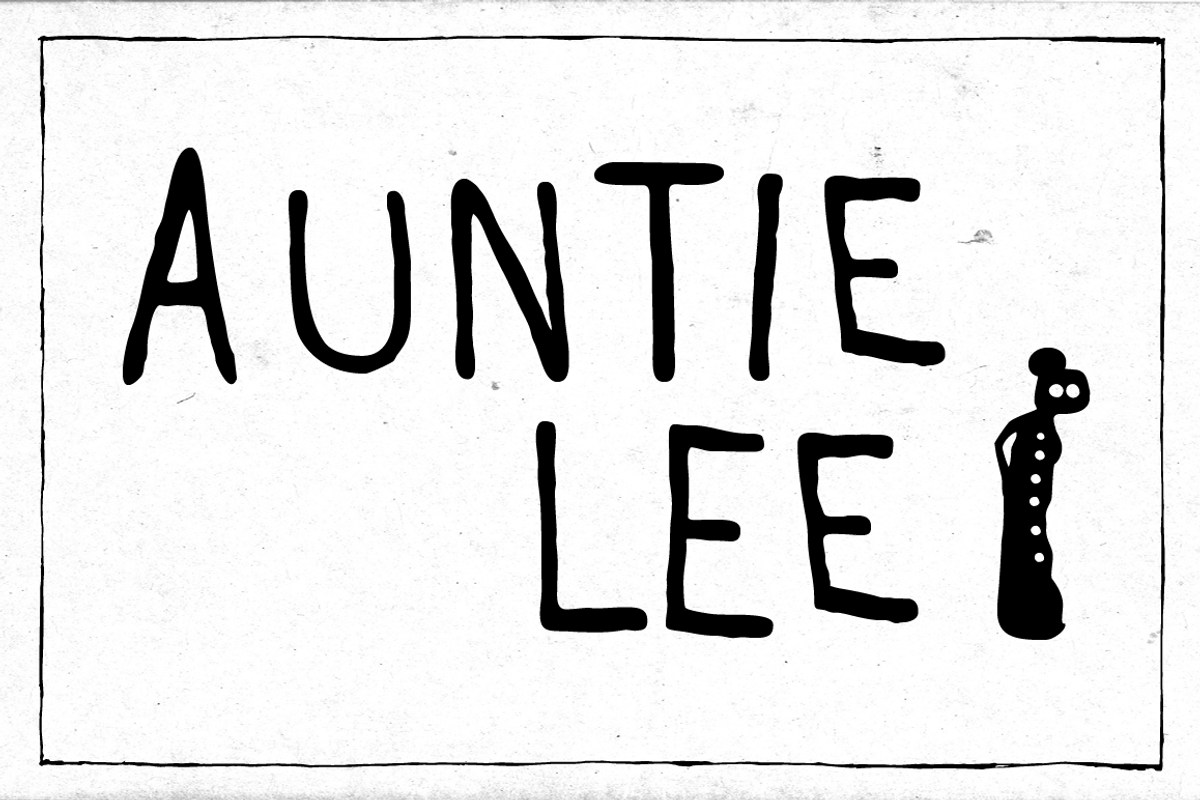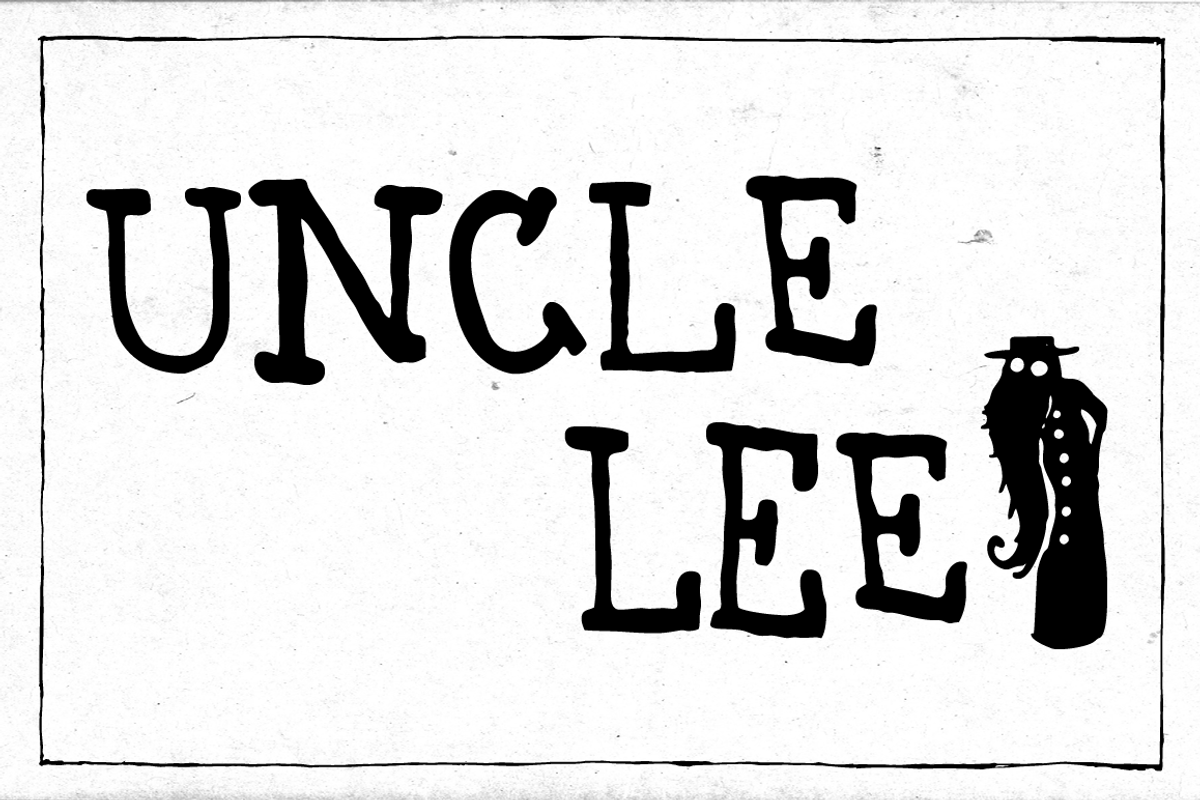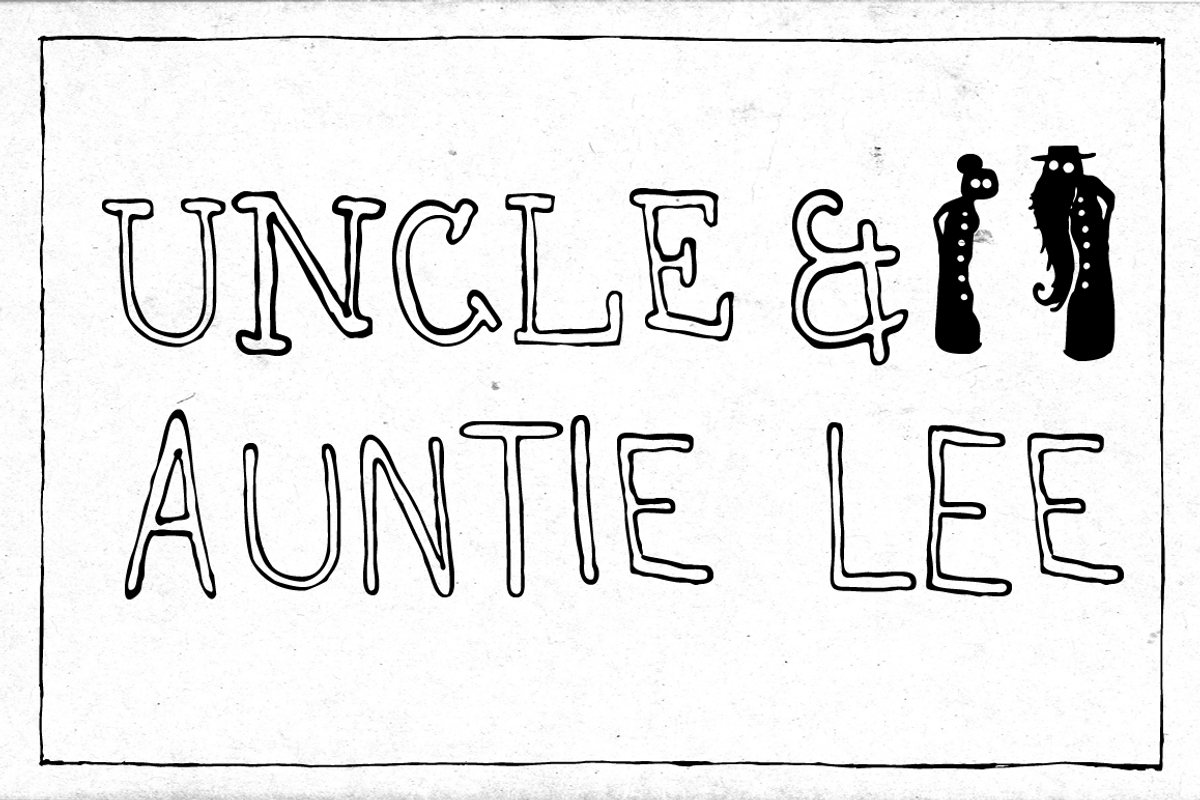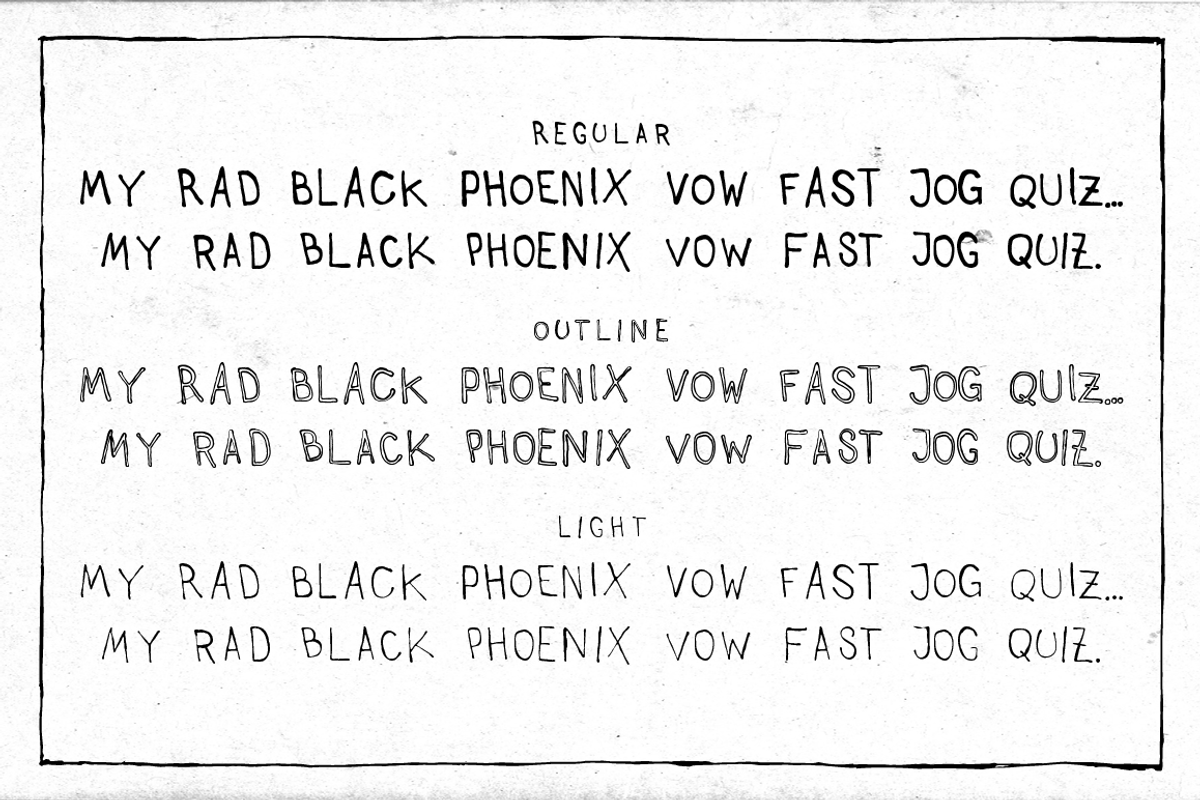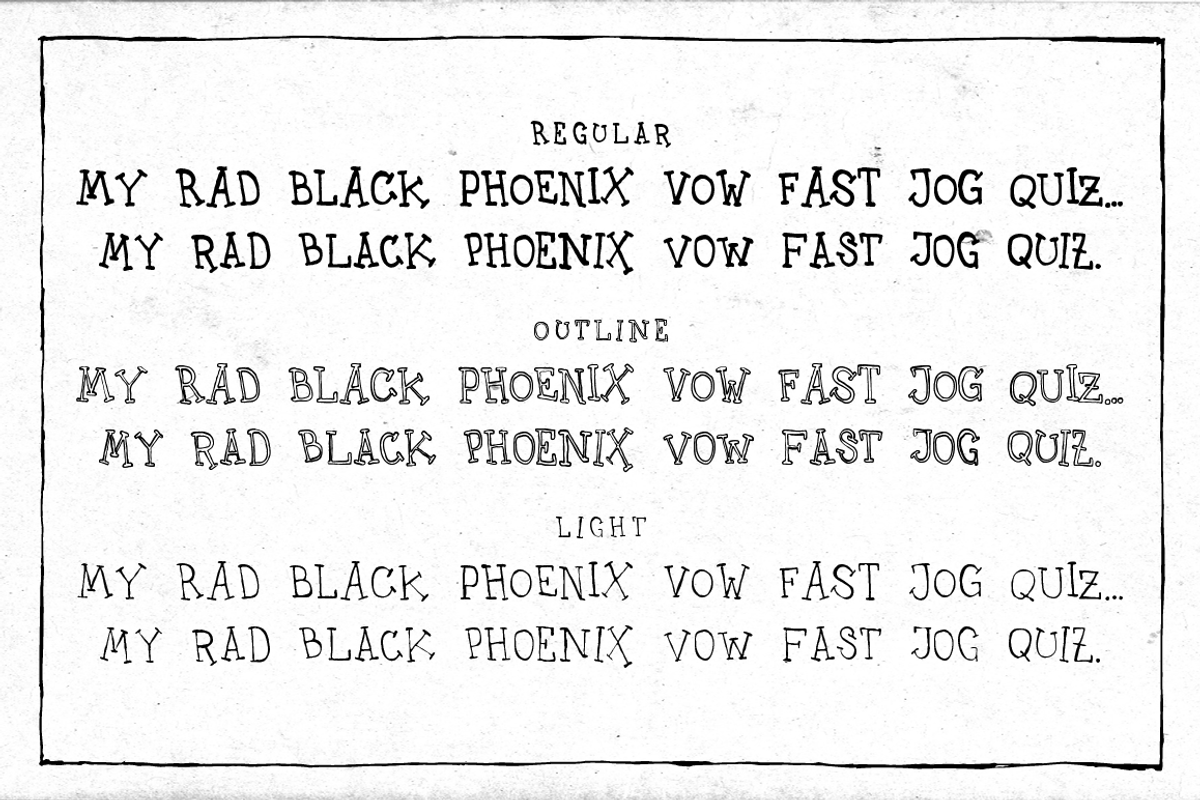
Uncle & Auntie Lee -Family (6 fonts)
Uncle & Auntie Lee -Family (6 fonts) by dawnland is a font selected for branding, posters, packaging, typography.
Why Uncle & Auntie Lee -Family (6 fonts) is worth a look
Uncle & Auntie Lee -Family (6 fonts) by dawnland fits naturally into Branding, posters, packaging, typography.